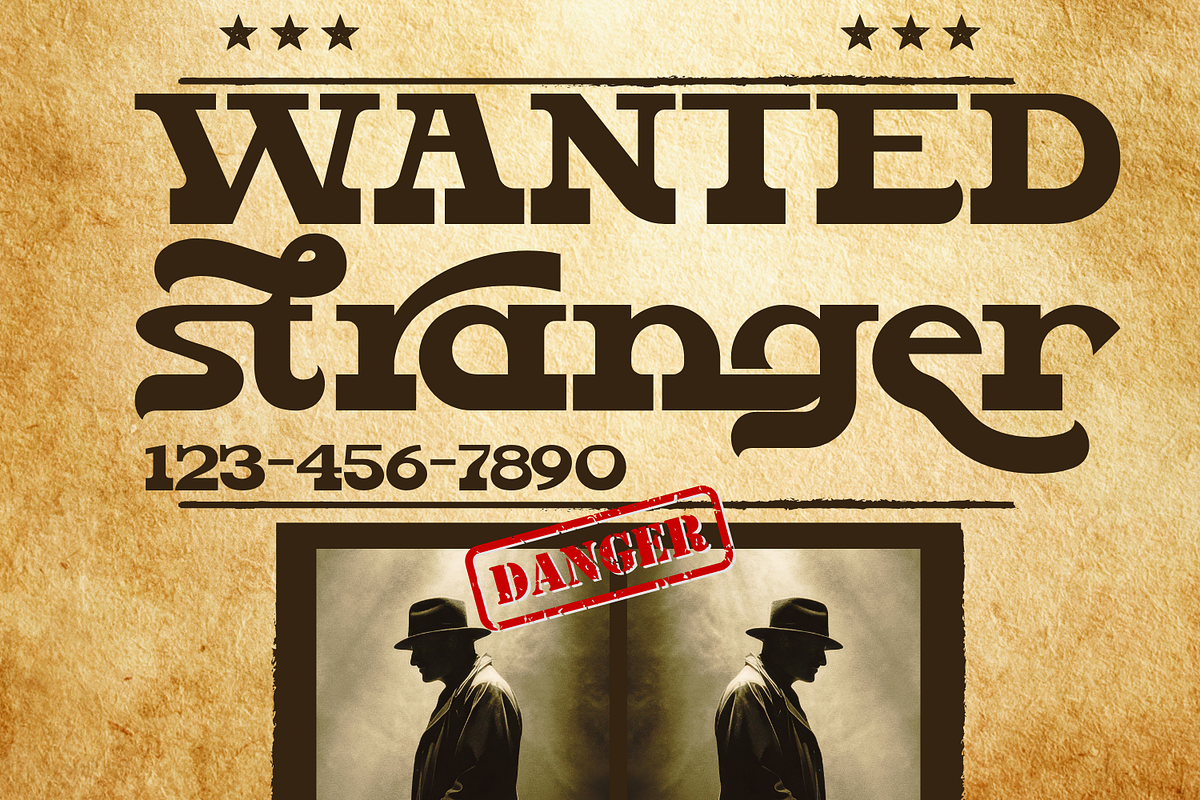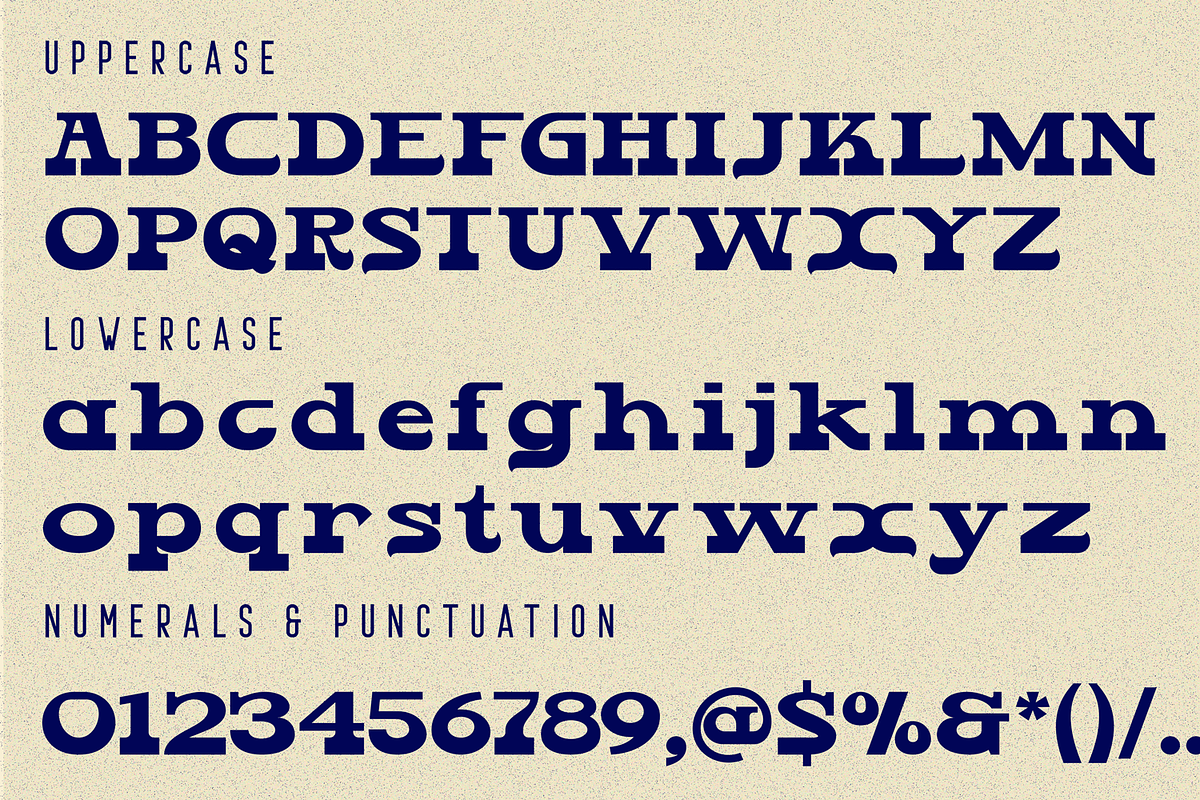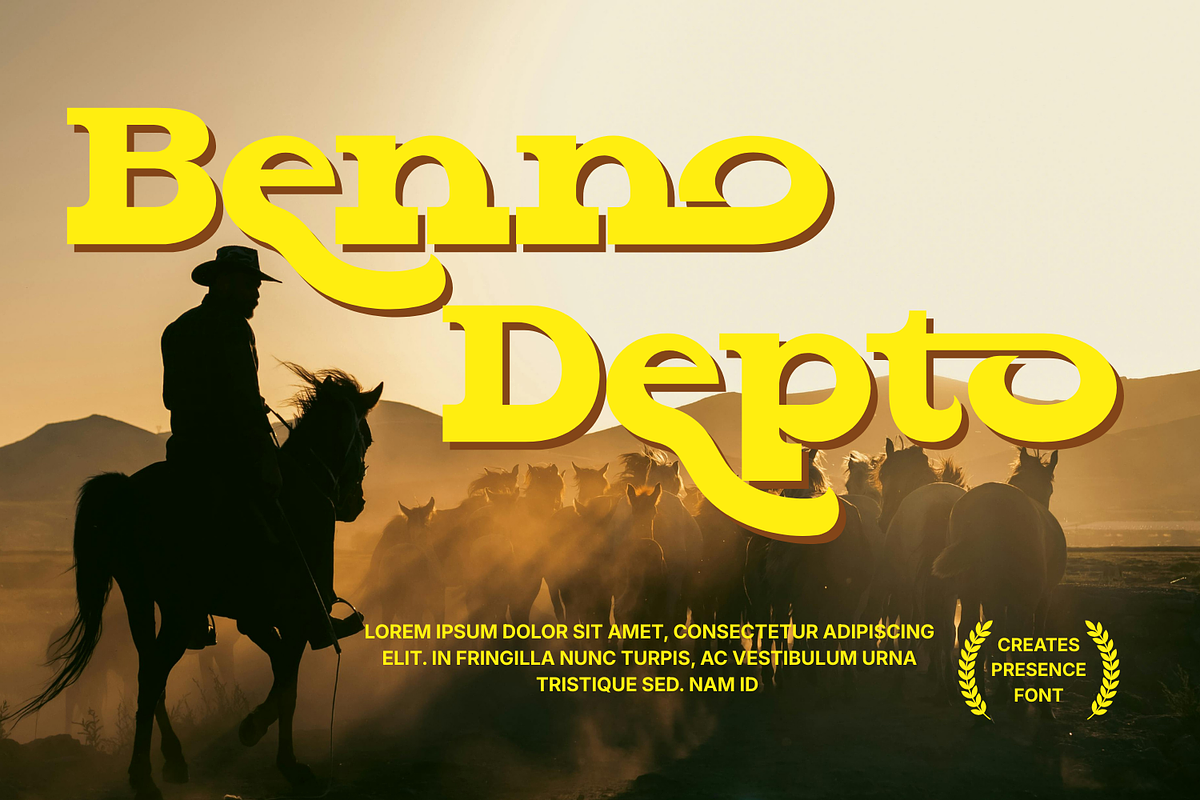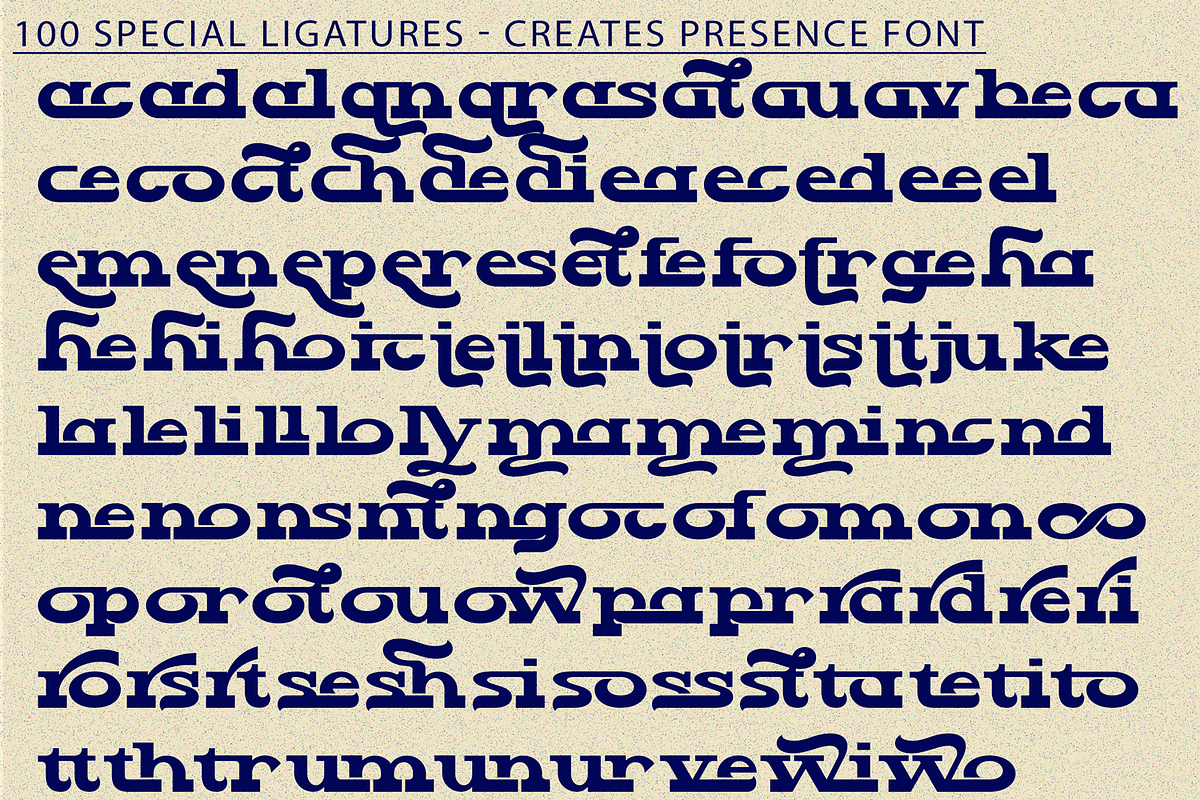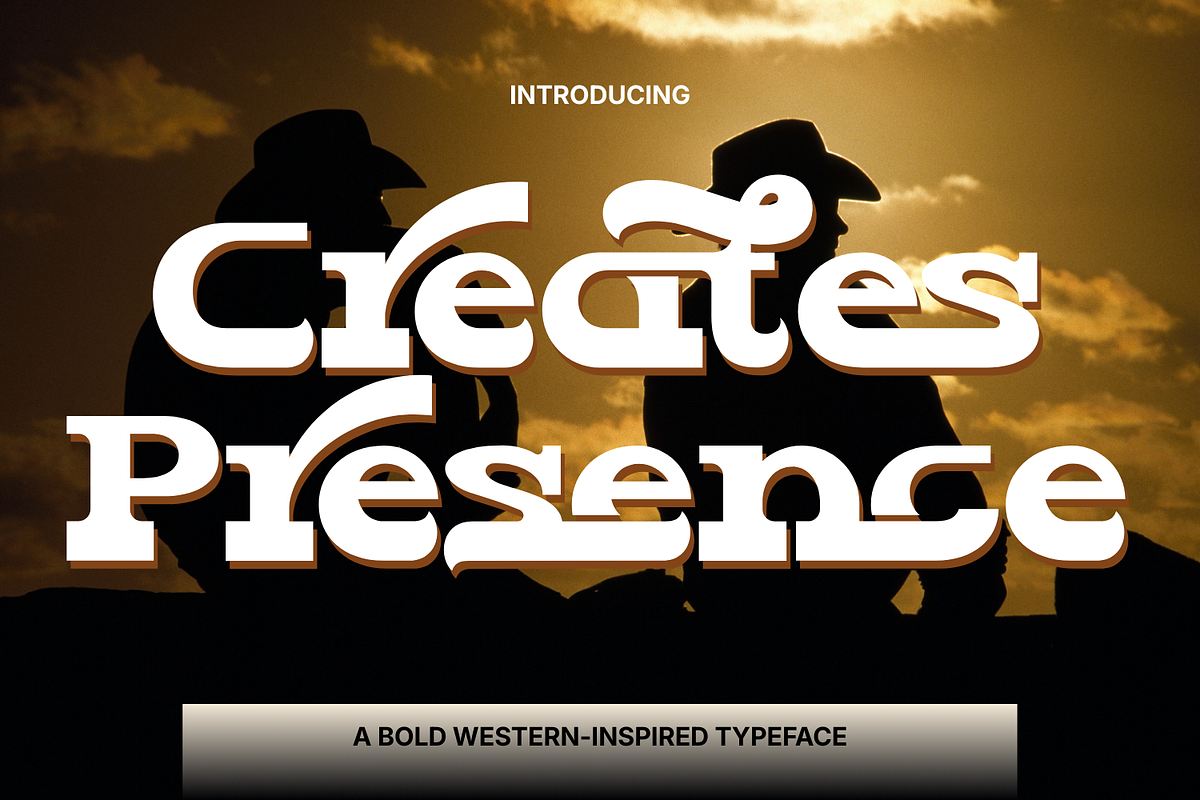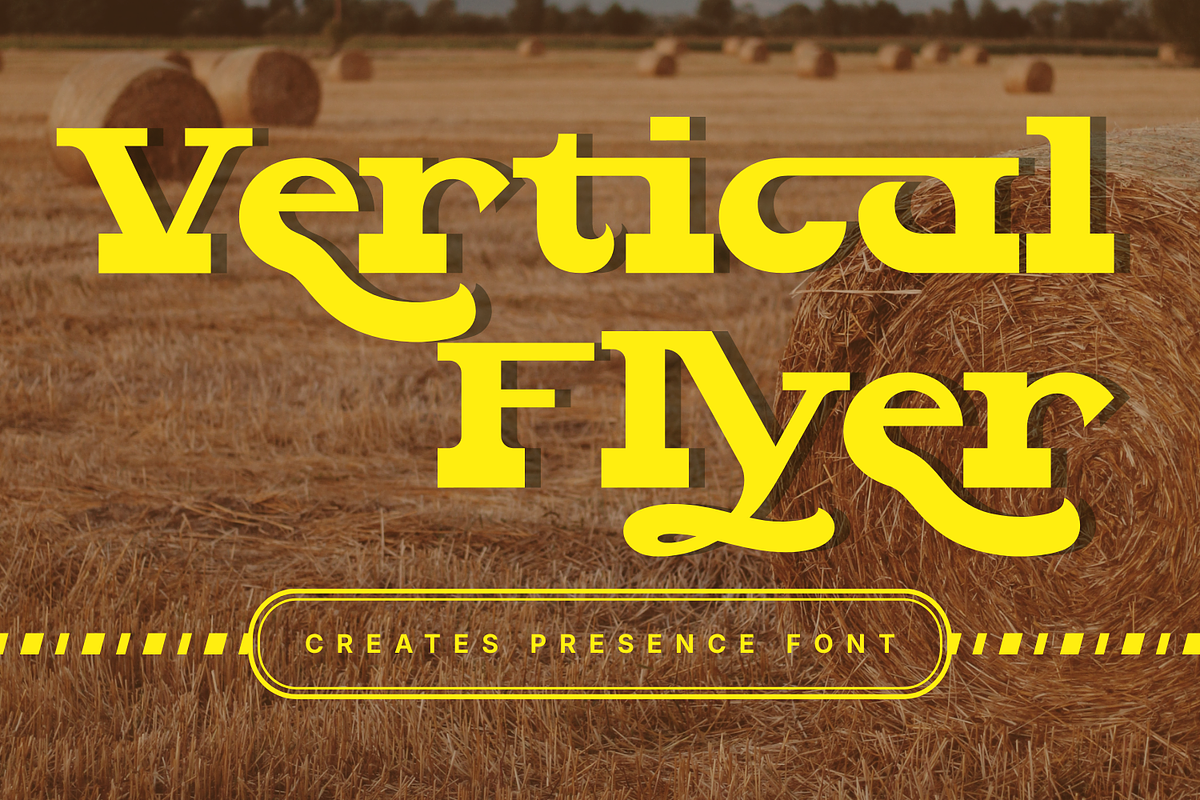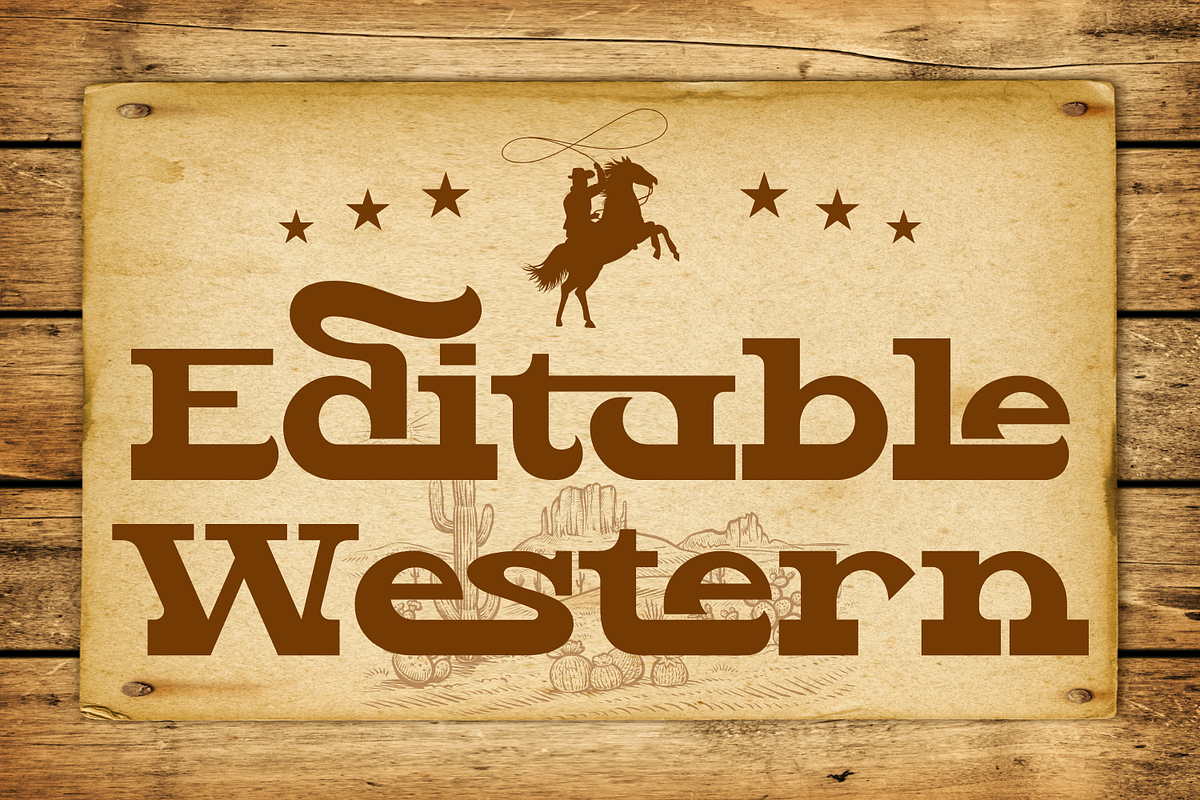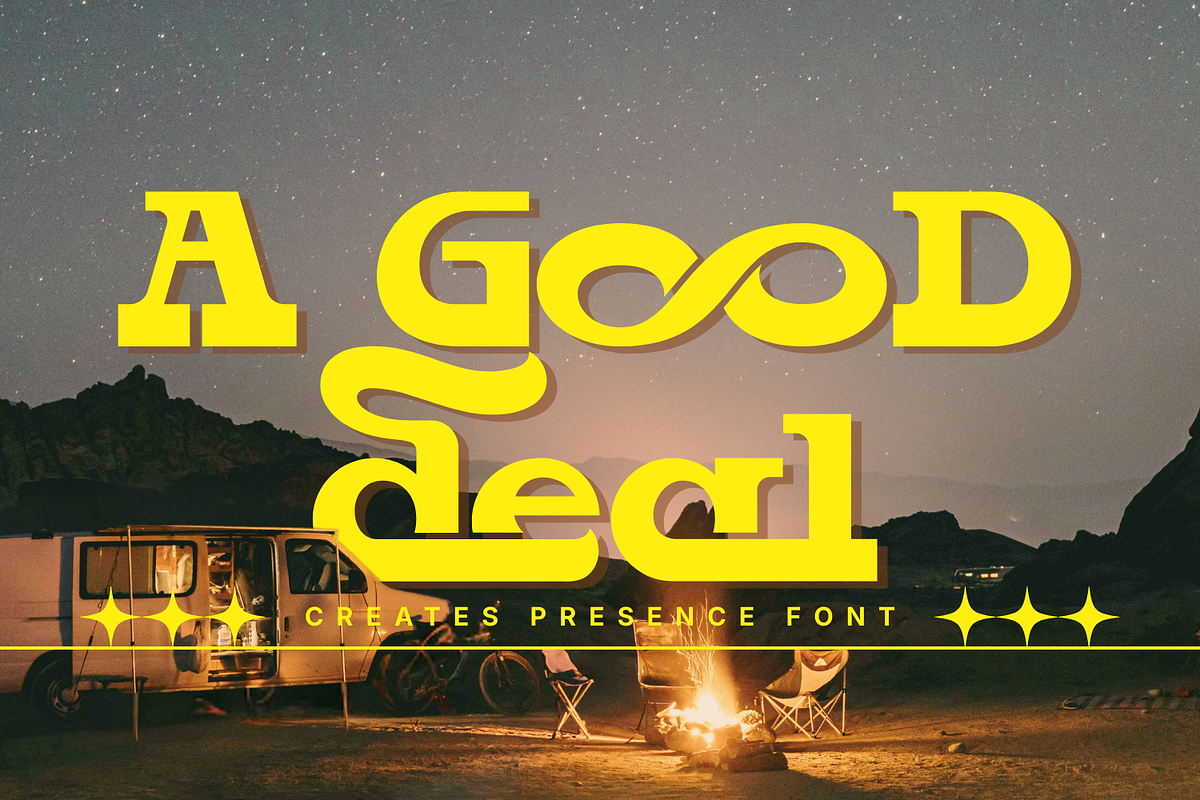
Creates Presence - Retro Font
Creates Presence - Retro Font is a classic serif display typeface inspired by timeless editorial typography and cinematic lettering. Featuring strong yet elegant letterforms with softly curved serifs, this font delivers a refined balance between tradition and modern visual impact. Designed for headlines and statement typography, Creates Presence offers both Uppercase and Lowercase letters, approximately 100 special ligatures, full Numerals & Punctuation, and extensive Accented characters, allowing designers to create expressive, high-end compositions with ease. Its wide proportions, smooth curves, and carefully crafted details make it perfect for branding, posters, book covers, fashion editorials, and film-inspired designs.
🔤Features:
- Uppercase & Lowercase Letters
- Around 100 Special Ligatures & Alternates
- Accented Characters for multilingual support
🔤About 100 ligatures combined with Stylistic Alternates Font:
ac ad al an ar as at au av be ca ce ch co ct de di ea ec ed ee el em en ep er es et fe fo fr ge ha he hi ho ie ic il in io ir is it ju ke la le li ll lo ly ma me mi nc nd ne ng no nt ns oc of om on oo op or ot ou ow pa pr ra rd re ri ro rs rt se sh si so ss st ta te th ti to tr tt um un ur ve wi wo